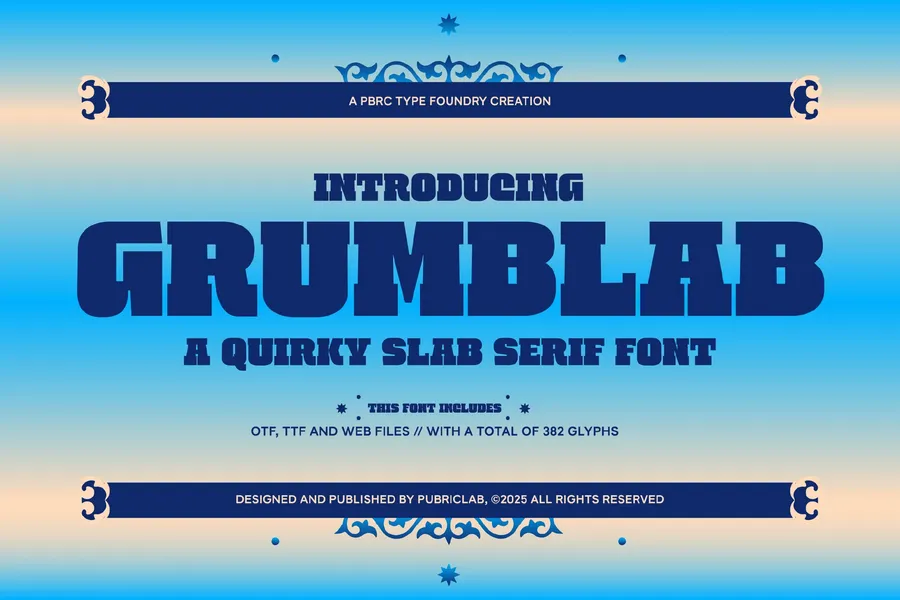
Grumblab is a slab serif font with quirky, bold, and slightly asymmetrical letterforms that add character and playfulness. Ideal for headlines, logos, and standout designs.
Ideal for headlines, logos, editorials, packaging, quotes, films, games, album covers, books, and promotional materials. This font ensures your design stands out in any setting.